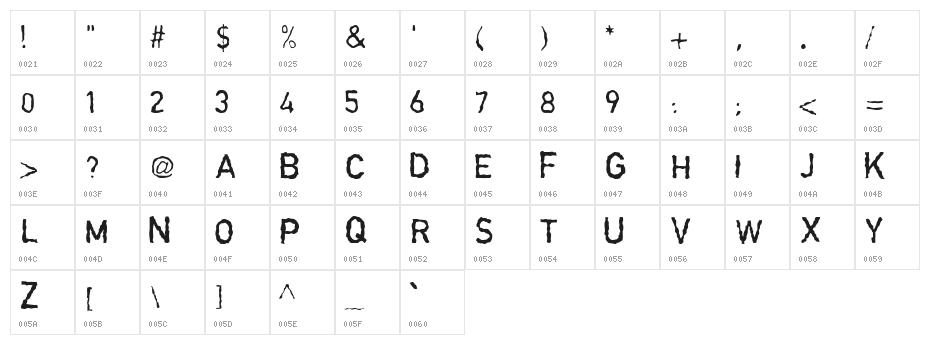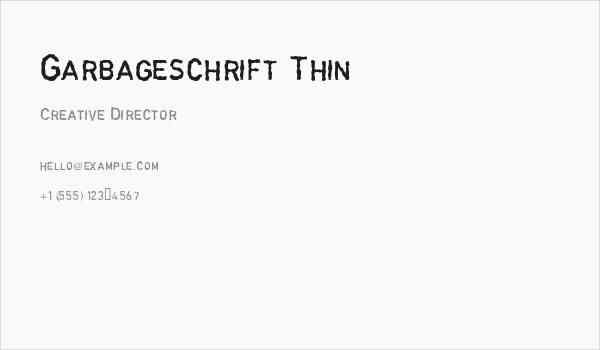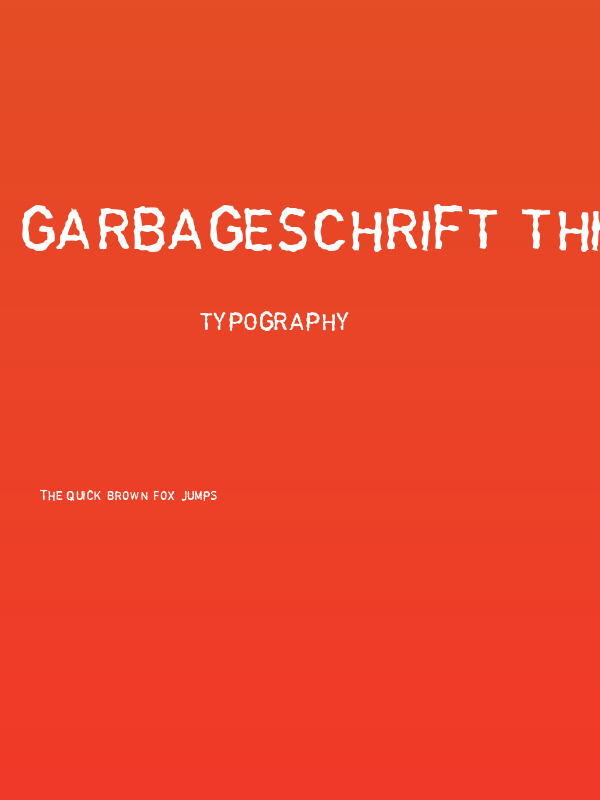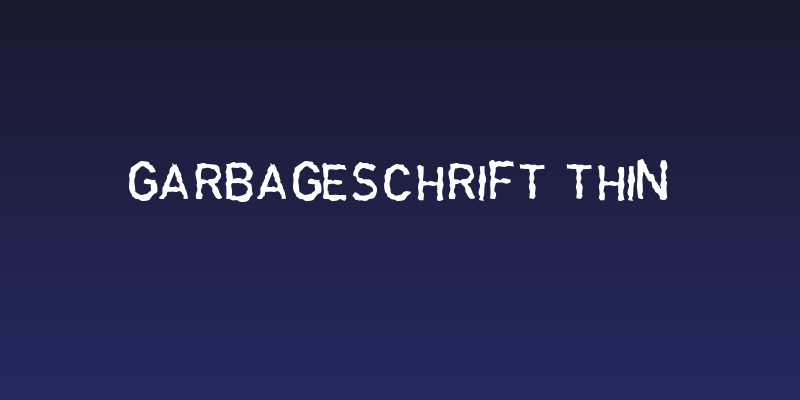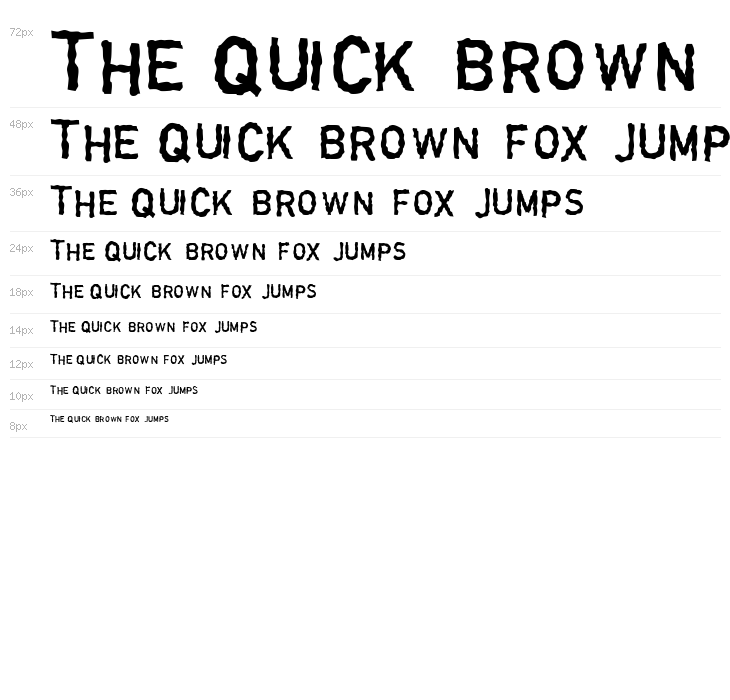
Garbageschrift Thin Font
Garbageschrift Thin Description
This font features a unique, distressed appearance with irregular edges and a hand-drawn quality. The characters have a rough, textured look, giving them an organic and somewhat chaotic feel. Despite the irregularities, the font maintains good legibility, with each letterform distinct and recognizable. The uppercase and lowercase letters are consistent in style, with a playful yet slightly eerie vibe. The numbers and special characters follow the same design principles, ensuring a cohesive look across all glyphs. This font is ideal for projects that require a touch of grunge or an unconventional aesthetic.
Use CaseHeadlines, Posters, Branding
Proposed ProjectsIdeal for album covers, horror movie posters, edgy branding, or any project needing a grunge or unconventional look.